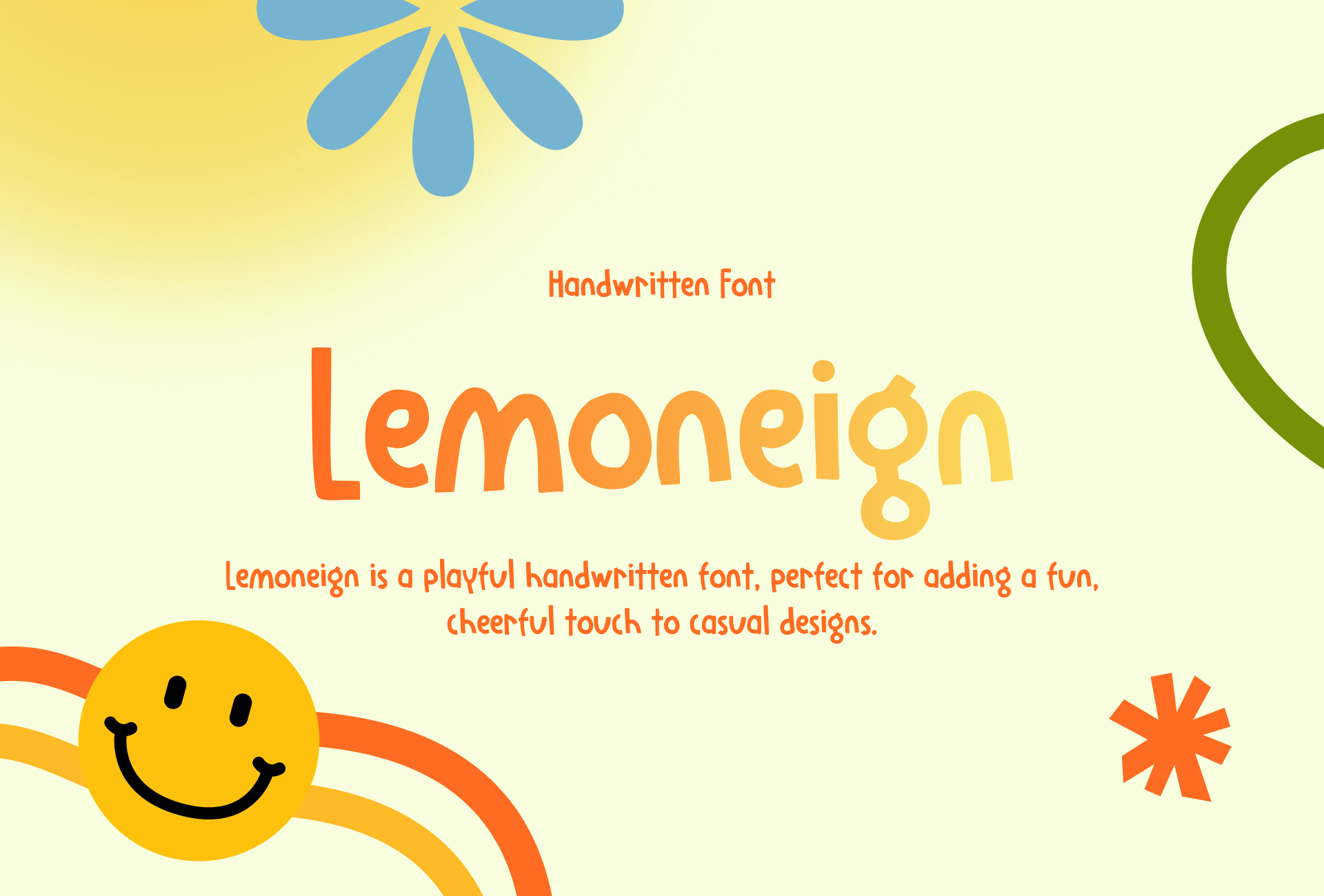
Lemoneign Display Font
Lemoneign Display Font is a playful handwritten font that’s perfect for adding a touch of fun to your casual designs. Its cheerful and carefree style makes it ideal for greeting cards, social media graphics, and any project that needs a dose of whimsy.